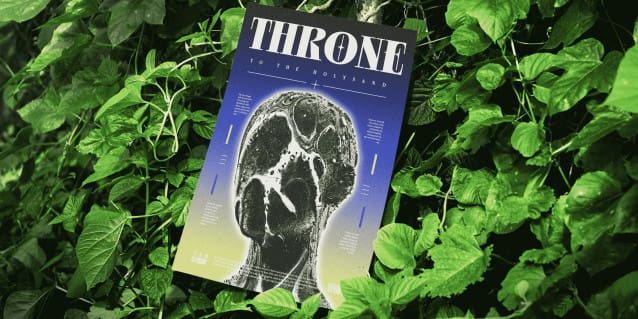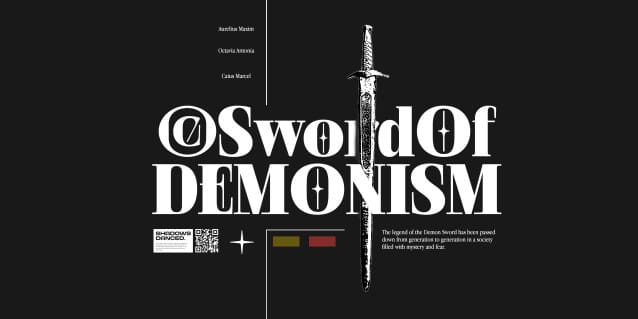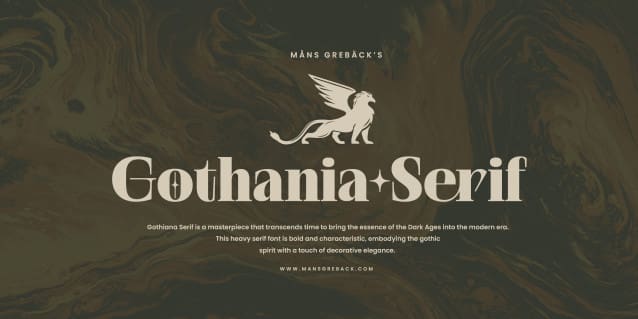
Gothania Serif Font
Gothania Serif Font is a heavy and characteristic serif font, embodying the gothic spirit with a touch of decorative elegance.
Its design resonates with the fine craft of historical art, yet it’s perfectly suited for contemporary projects seeking a touch of the mystical and the timeless.